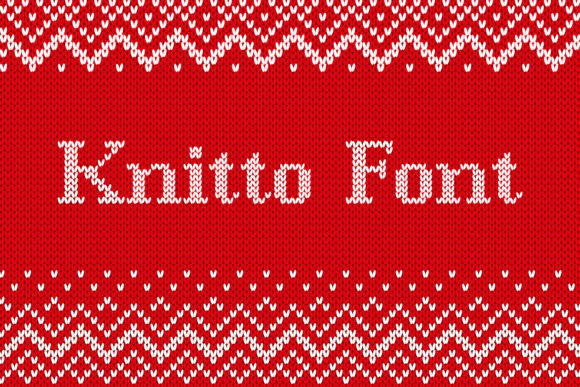
Unleash the magic of Christmas with Knitto, the enchanting decorative font that weaves a tapestry of fun, quirkiness, and authenticity. Crafted with the spirit of the holiday season, Knitto is an irresistible font style that transforms creative ideas into dazzling masterpieces.
Knitto isn't just a font; it's a gateway to a world of festive charm. Its meticulous design captures the joyous essence of Christmas, evoking feelings of warmth, wonder, and excitement. Whether you're creating holiday cards, designing festive invitations, or crafting social media posts, Knitto adds a touch of Christmas magic to every project.
With Knitto, you can:
* Spread Christmas cheer through captivating holiday greetings
* Design enchanting invitations that ignite the spirit of the season
* Craft social media posts that sparkle with festive flair
* Create eye-catching logos and branding that radiate Christmas charm
* Add a touch of whimsy to your website or blog with playful typography
* Let your imagination run wild and explore endless creative possibilities
Knitto's versatility extends beyond Christmas-themed projects. Its delightful personality shines through in various design applications, adding a touch of magic to branding, packaging, posters, and more. Whether you're a seasoned designer or just starting, Knitto is your creative companion, ready to transform your projects into captivating works of art.
Embrace the magic of Knitto today and embark on a creative journey filled with festive cheer and endless possibilities. Experience the joy of creating with a font that truly captures the spirit of Christmas.